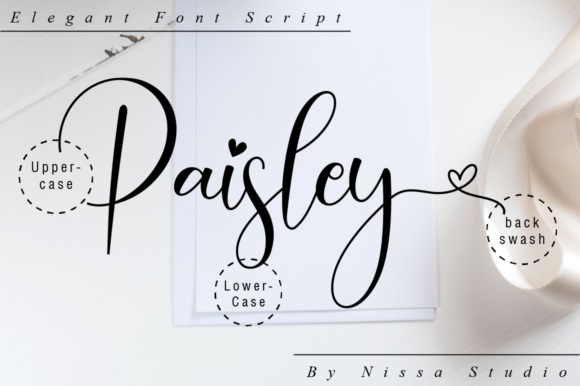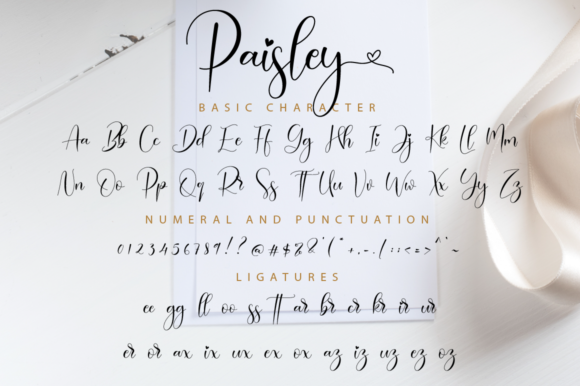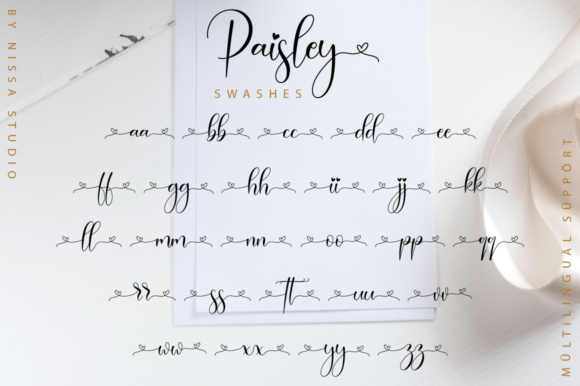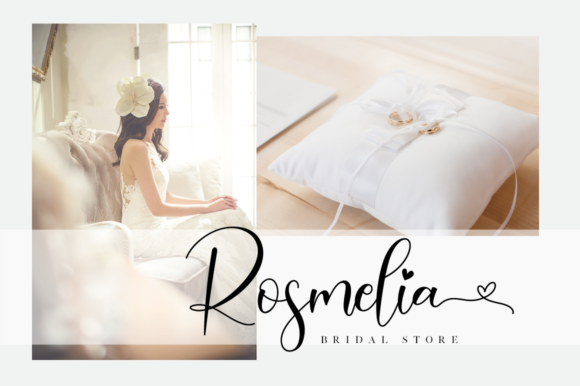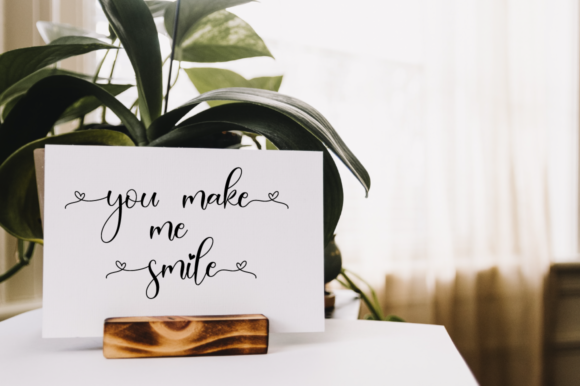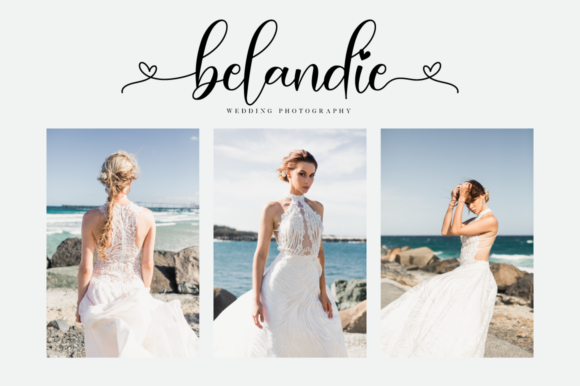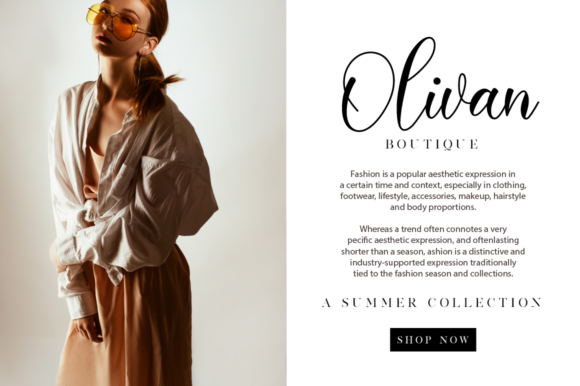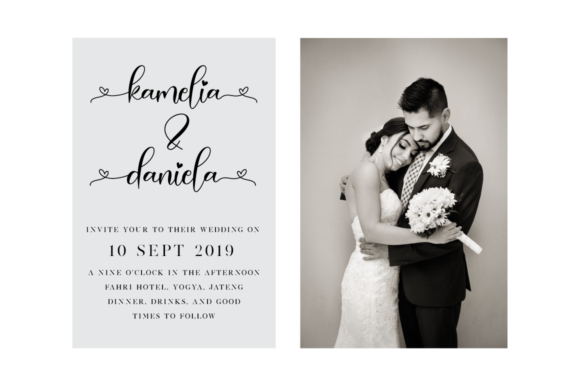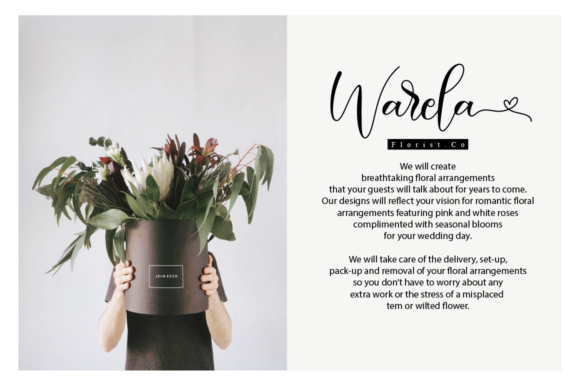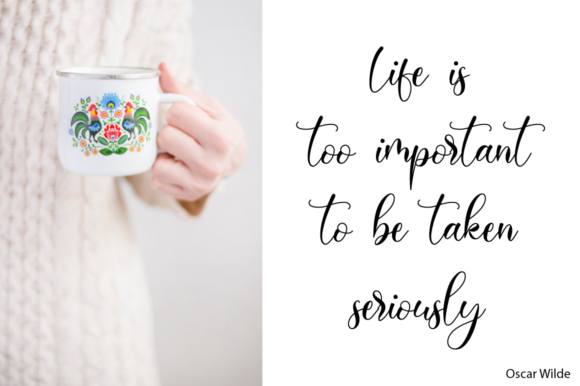
HomeScript FontsPaisley Script Font Script Fonts Paisley Script Font FacebookXPinterestWhatsApp Paisley Script Font Poster 2 Paisley Script Font Poster 3 Paisley Script Font Poster 4 Paisley Script Font Poster 5 Paisley Script Font Poster 6 Paisley Script Font Poster 7 Paisley Script Font Poster 8 Paisley Script Font Poster 9 Paisley Script Font Poster 10 Paisley Script Font Poster 11 Paisley Script Font Poster 12 About Paisley Script Font Paisley is a beautiful script font that has a classy, elegant, and modern look. DOWNLOAD ON CREATIVE FABRICAThis font is sold and delivered by Creative Fabrica. Font Canyon may earn a commission if you buy through this link. People also explored Sharoon Font Ekela Font Sullthan Riyad Font Shorter Font Butterfly Waltz Rombenk Font Party Font Love Story Font Fornix Font 405 0 TagsPaisley Script Font Previous articlePinttamuh FontNext articleMariosa Font LEAVE A REPLY Cancel reply Comment: Please enter your comment! Name:* Please enter your name here Email:* You have entered an incorrect email address! Please enter your email address here Website: Save my name, email, and website in this browser for the next time I comment. Personal Use Free Green Farmhouse Personal Use Free Read more about this font Crack Man Personal Use Free Read more about this font Denisha Personal Use Free Read more about this font Font Slice Personal Use Free Read more about this font BLOG Free vs Paid Fonts: Why Investing in Premium Fonts Is Worth It Free vs Paid Fonts: Why Premium Fonts Are Worth It in 2025 The debate of free vs paid fonts continues in the design world. While... To increase your work productivity, choose the most readable fonts. Fonts That Capture the Spirit of New York City Using Fonts in Digital Marketing: Tips to Strengthen Your Brand Identity